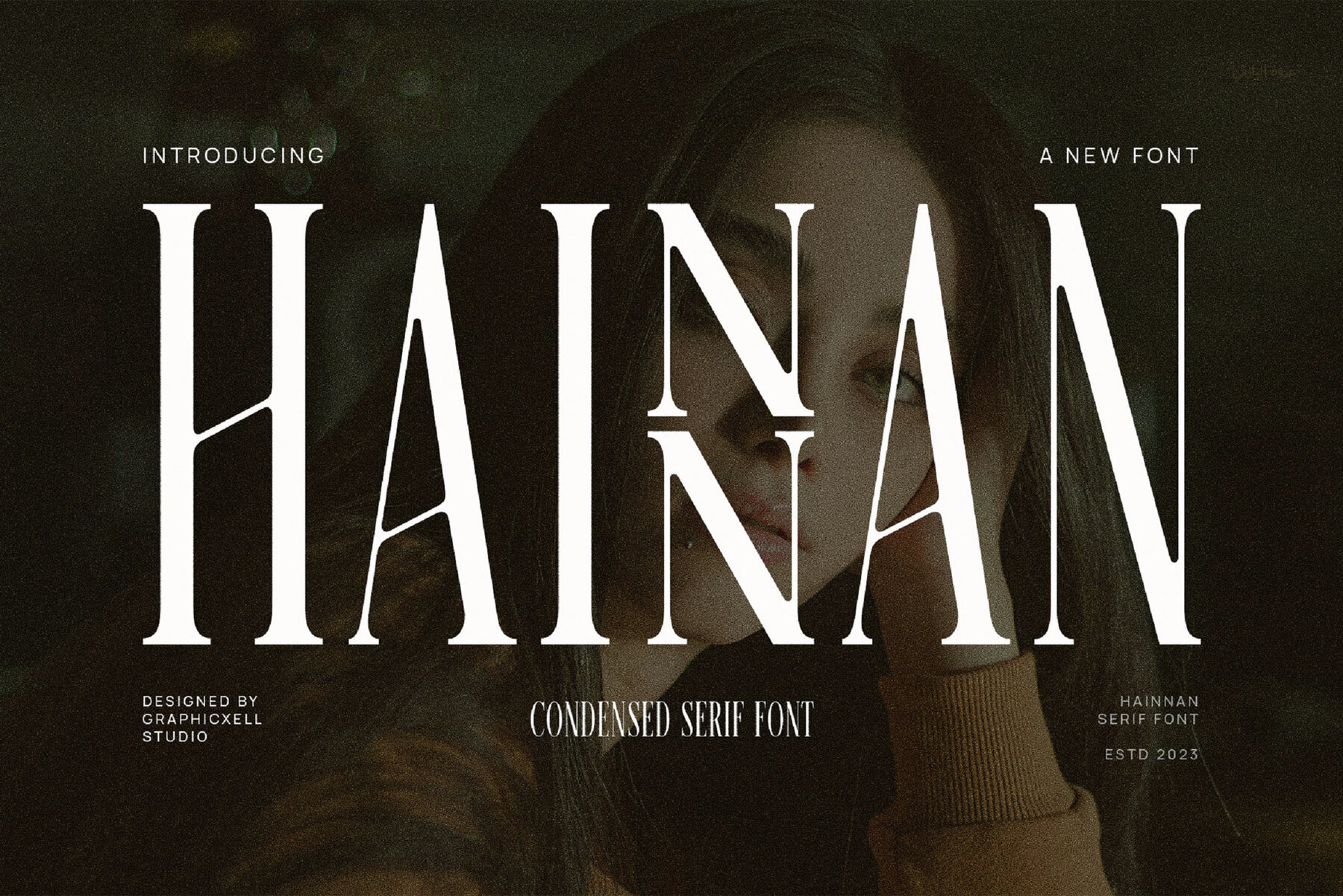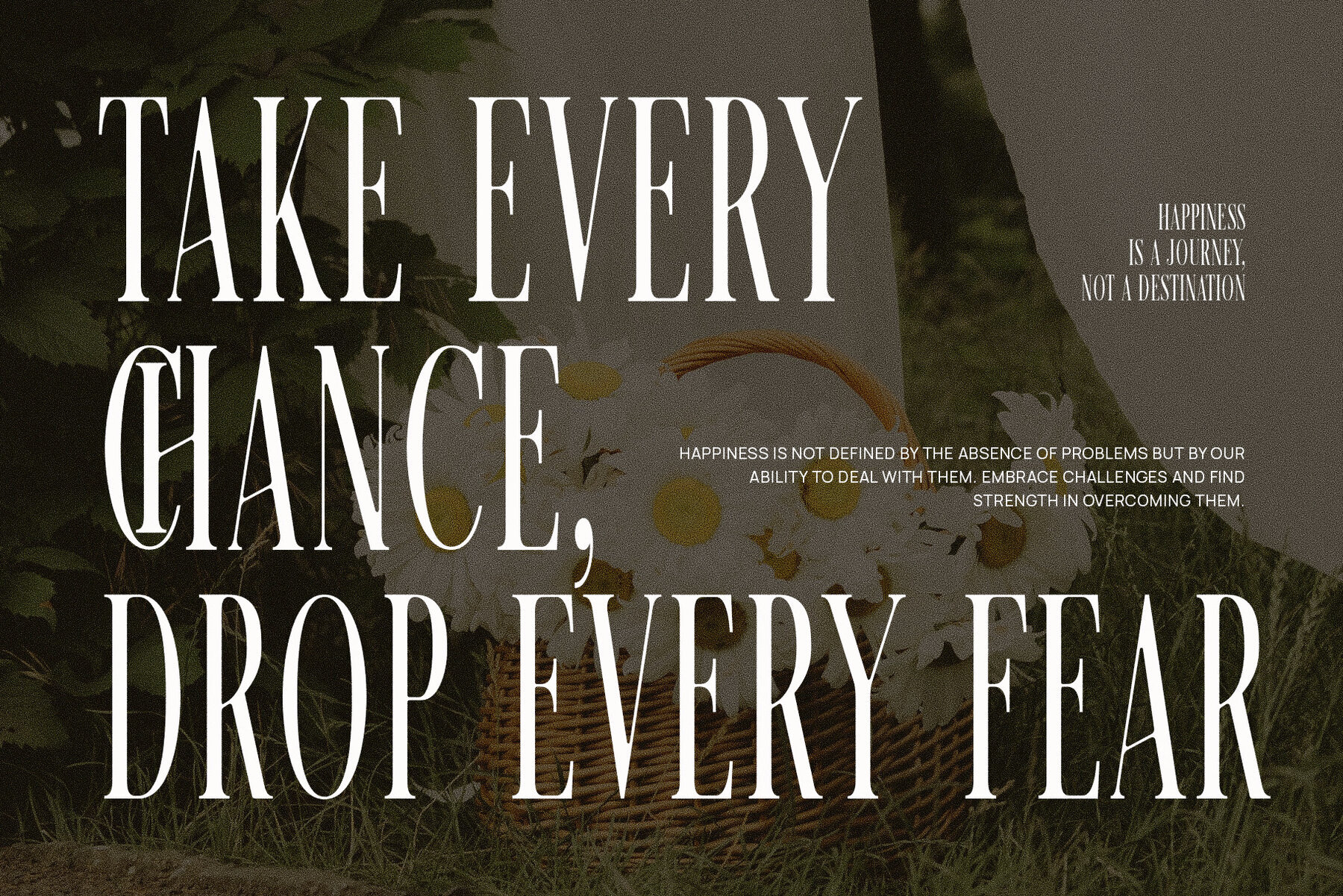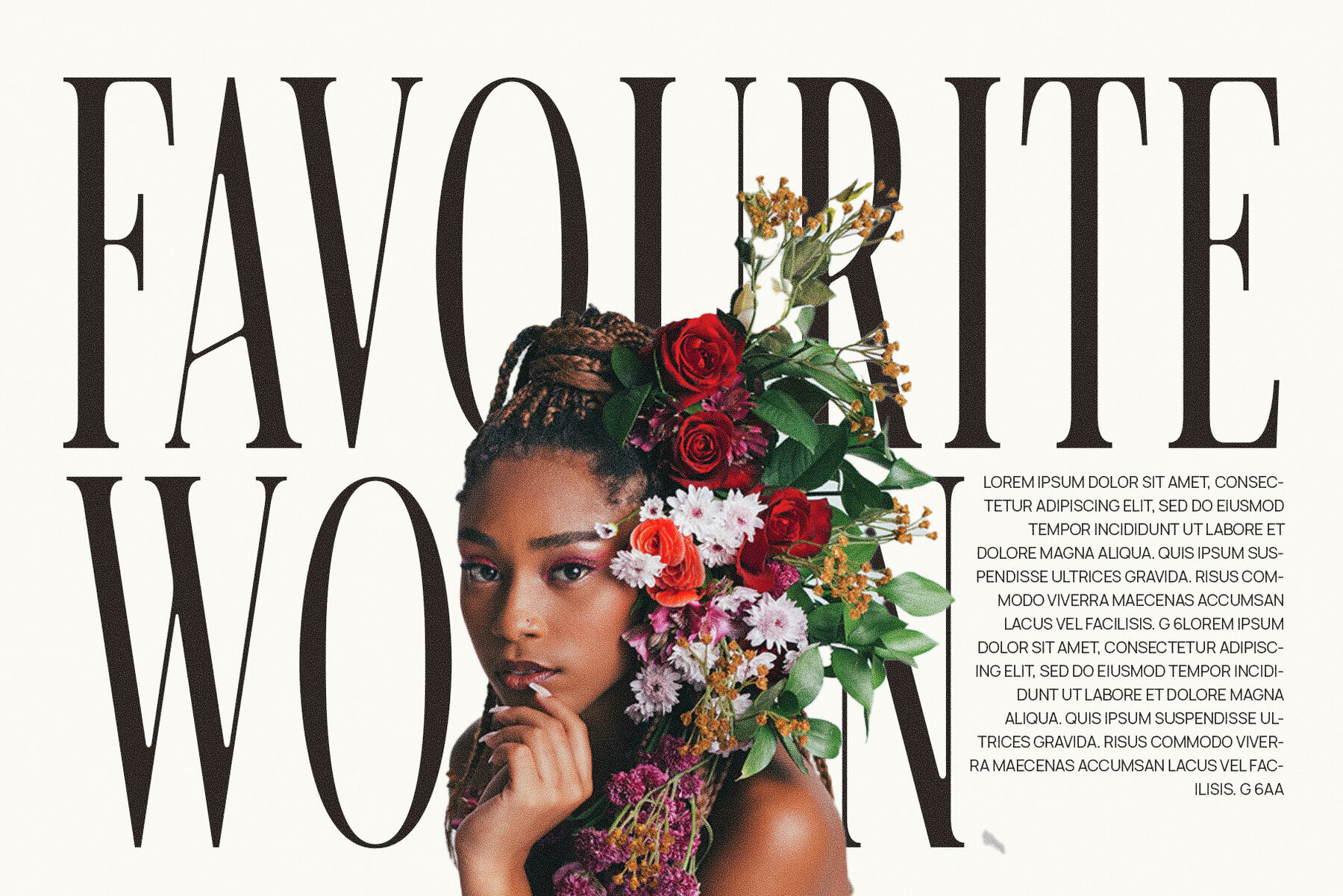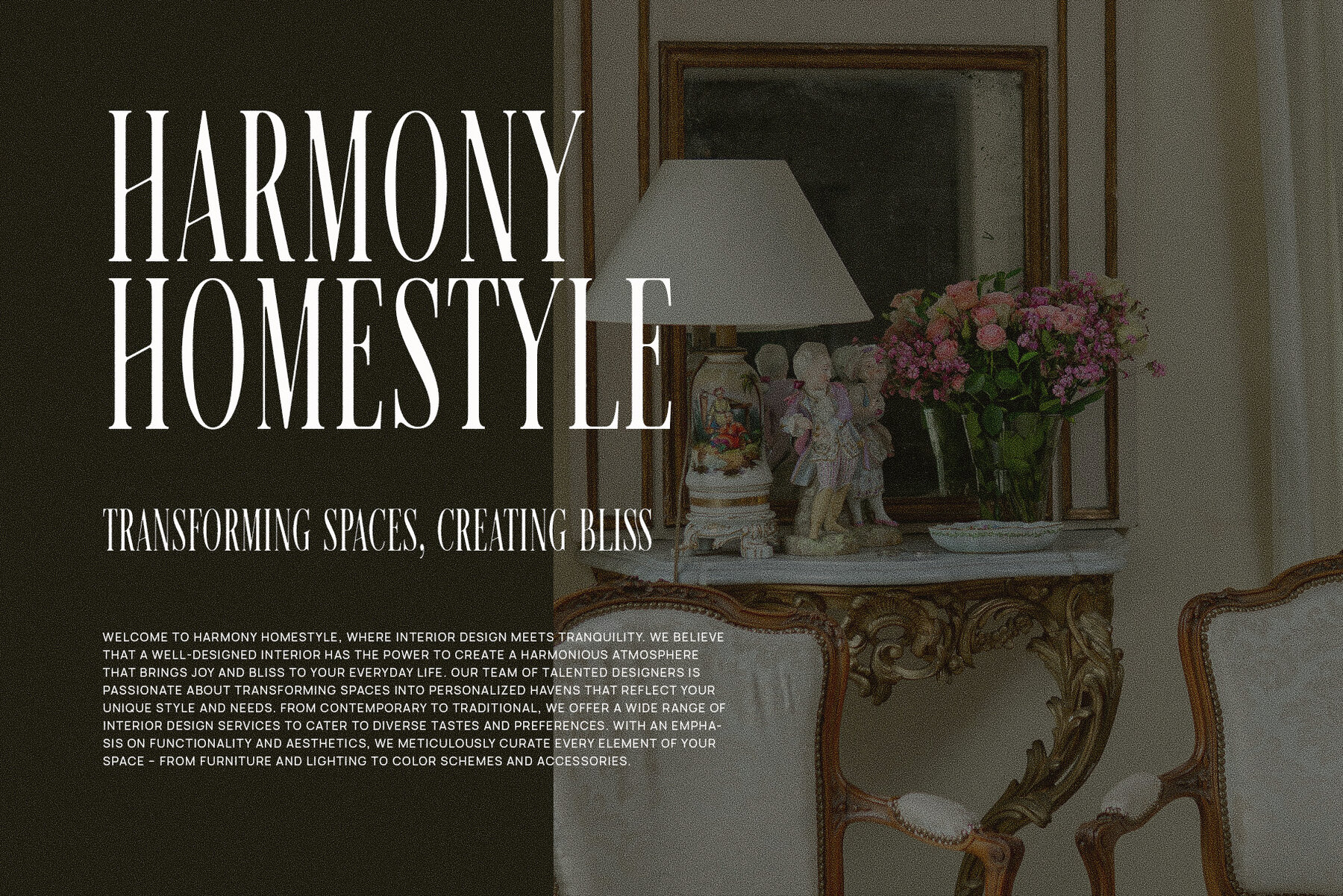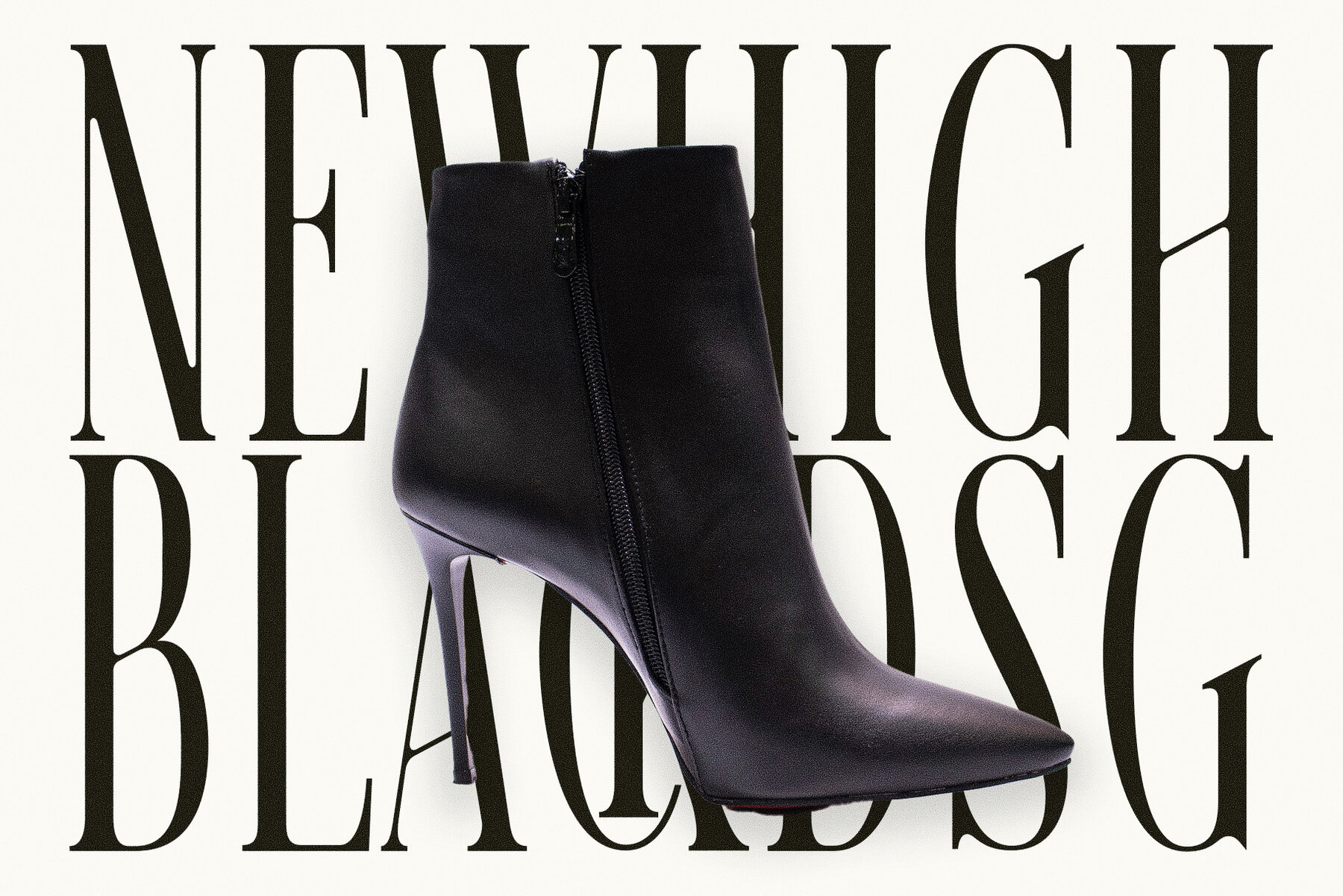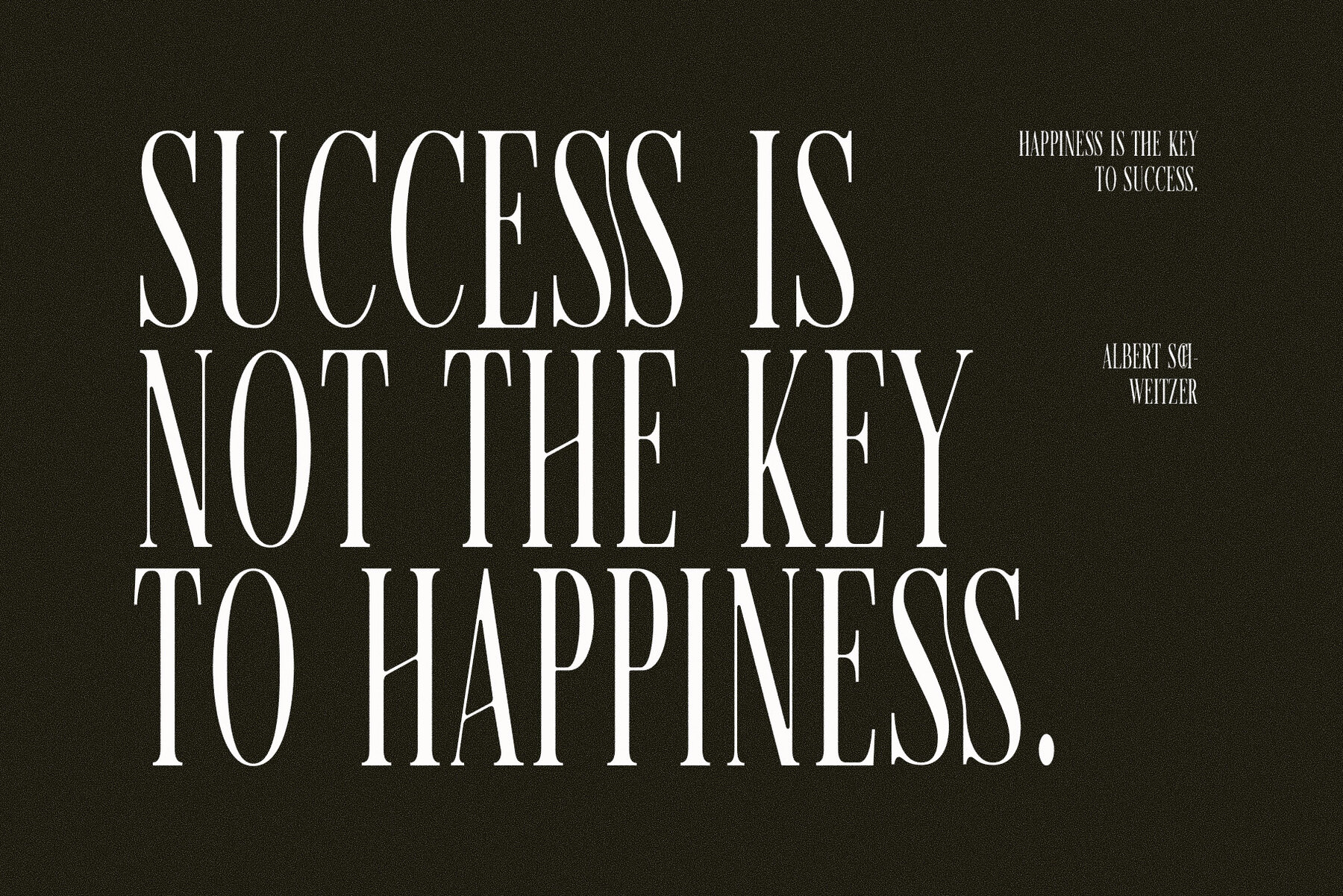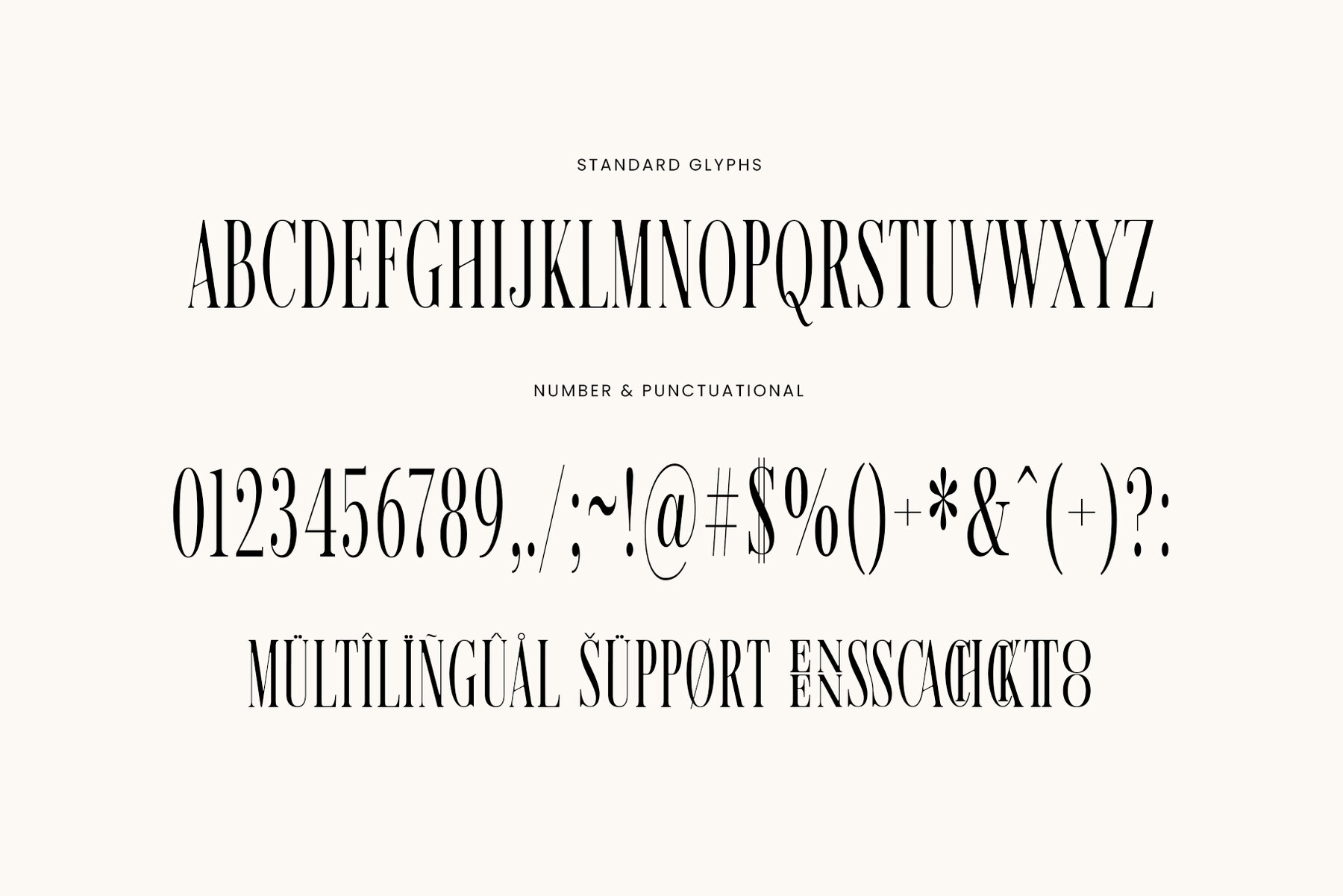
Hainnan Font
Hainnan Regular
Conceived with a fusion of sophistication and modern style, the Hainnan typeface is a distinctive serif font poised to elevate your designing prowess. With its roots embedded in elegance yet encompassing the fluid dynamics of contemporary style, Hainnan is designed by the revered Graphicxell. Its quintessential aesthetic synergizes impeccably with a myriad of design endeavors, making it an irreplaceable asset in any designer's toolkit. Whether your canvas is a brand logo, wedding theme, or a voluminous social media campaign, Hainnan removes all bounds of creativity. Its characteristic versatility makes it the go-to serif typeface for graphic designers and marketing firms, who require an edge in their visual communication. And as creativity never sleeps, neither does Hainnan's potential to transform your design ideas into tangible artistry.Transform Your Design Philosophy with the Sublime Hainnan Typeface by Graphicxell